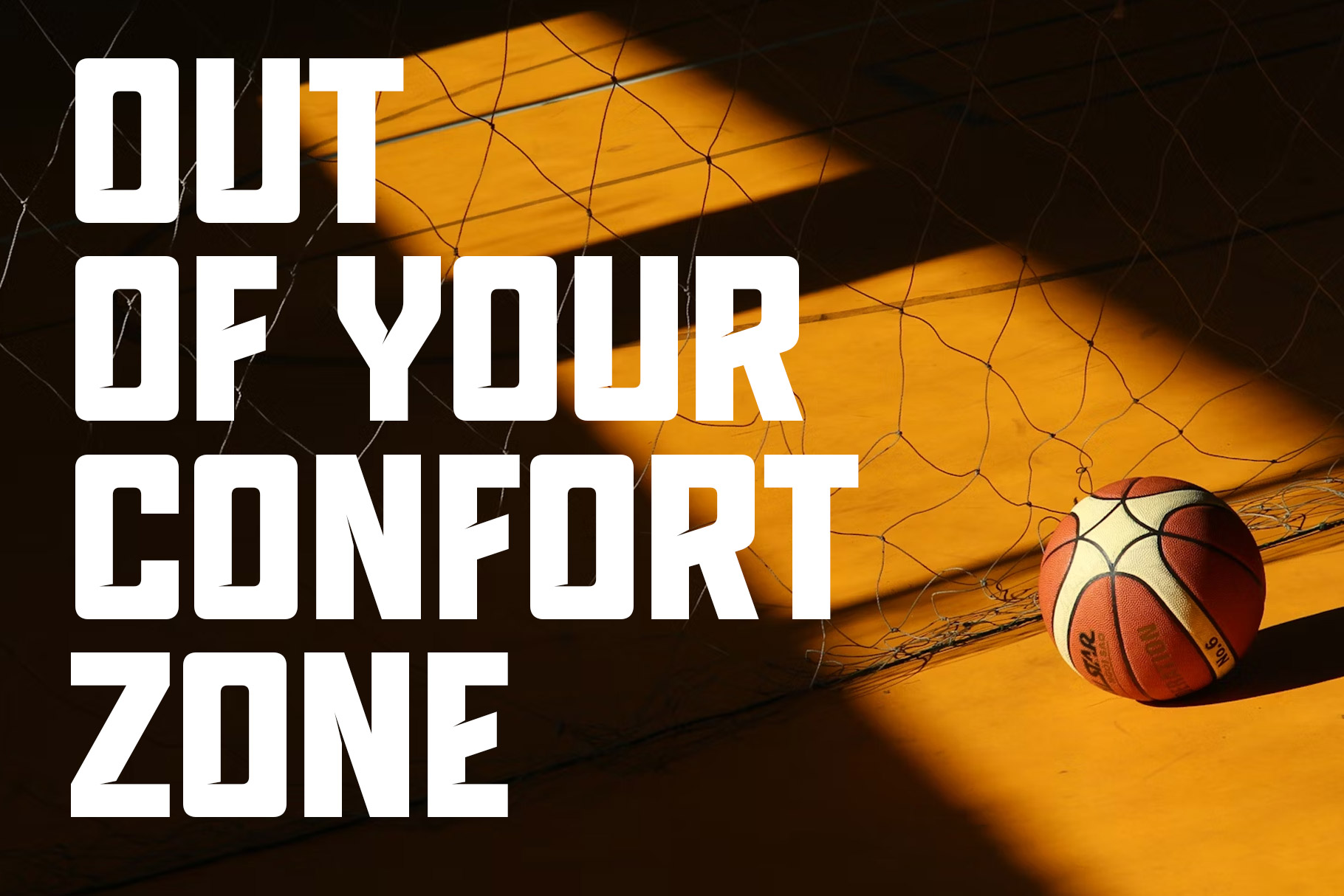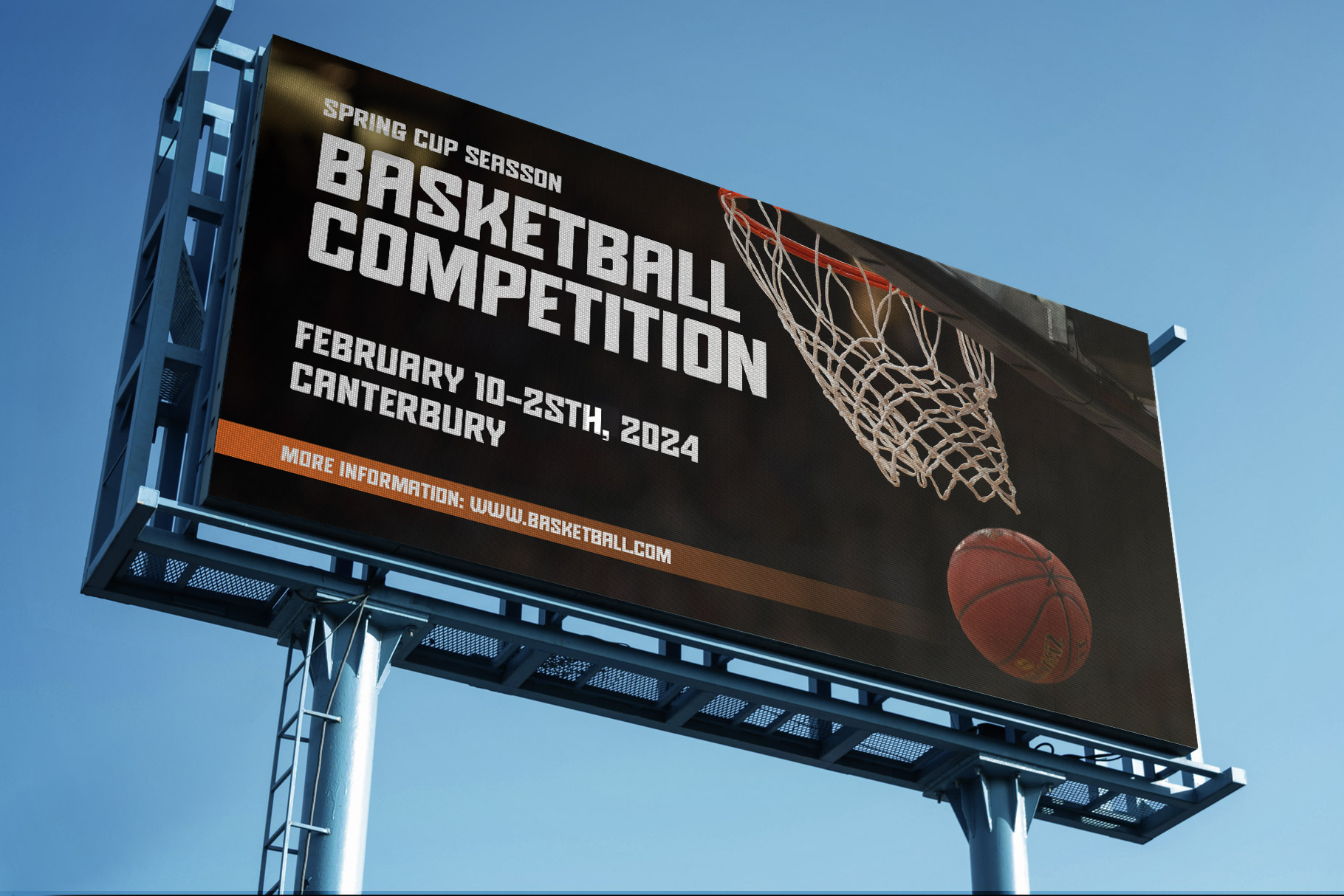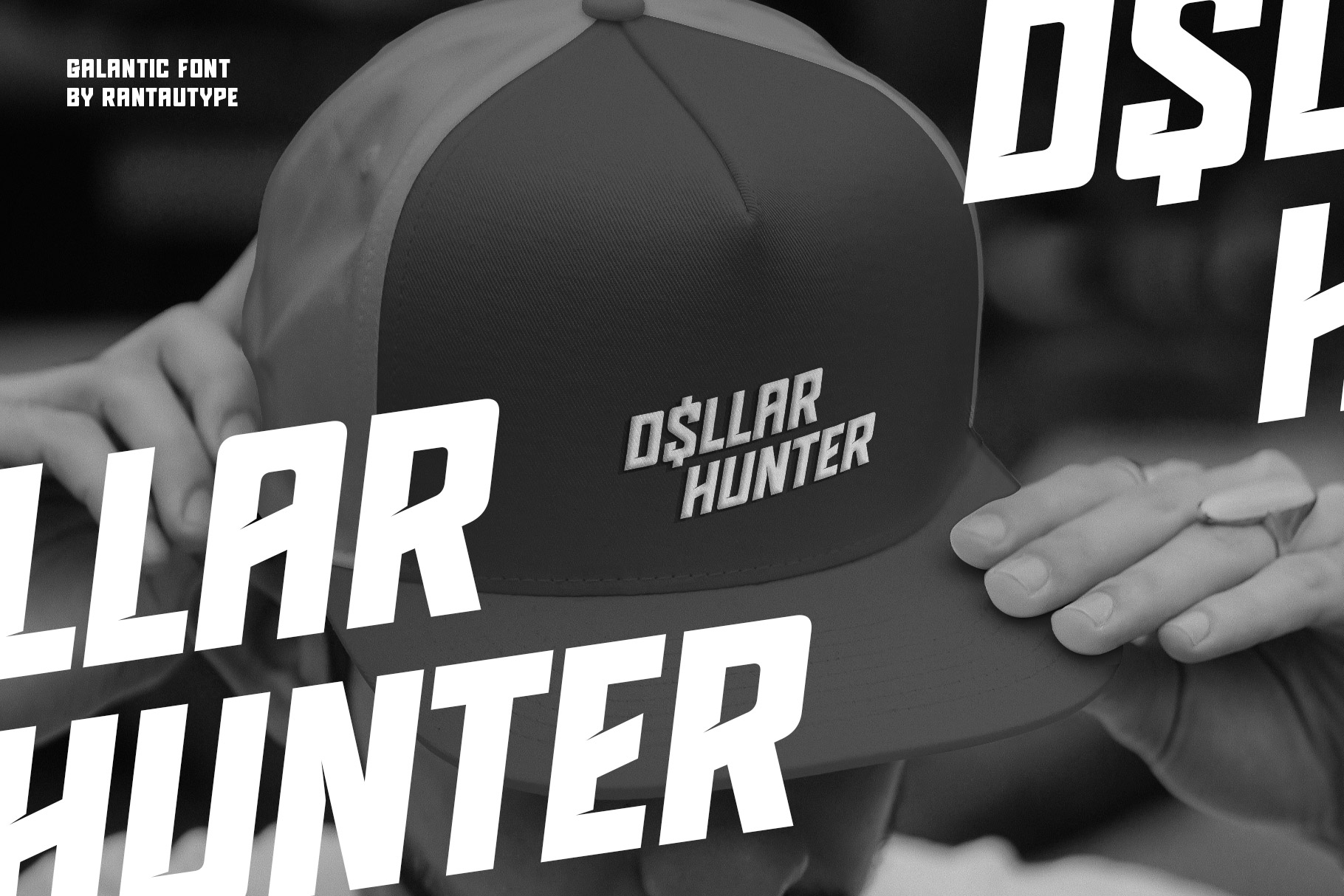
Galantic Sporty Font
Experience sporty in a visual form for your design with the galantic font. Inspired by sport brand and game concept, targeting the sport forward mentality with a bold shape to make the statement louder and modern than ever. Galantic come with visual elegance, strong curve, beautiful ligature, option for alternate and have already support multingual character.
A very versatile font that works in large and small sizes. Perfectly suitable for any creative endeavor, personal project, corporate, enterprise, industrial, sports brand, logo, esports, games, posters, film/movice, sport events, advertising, gym and fitness, digital futuristic concept and more. Now you can using Galantic to elevate you work.